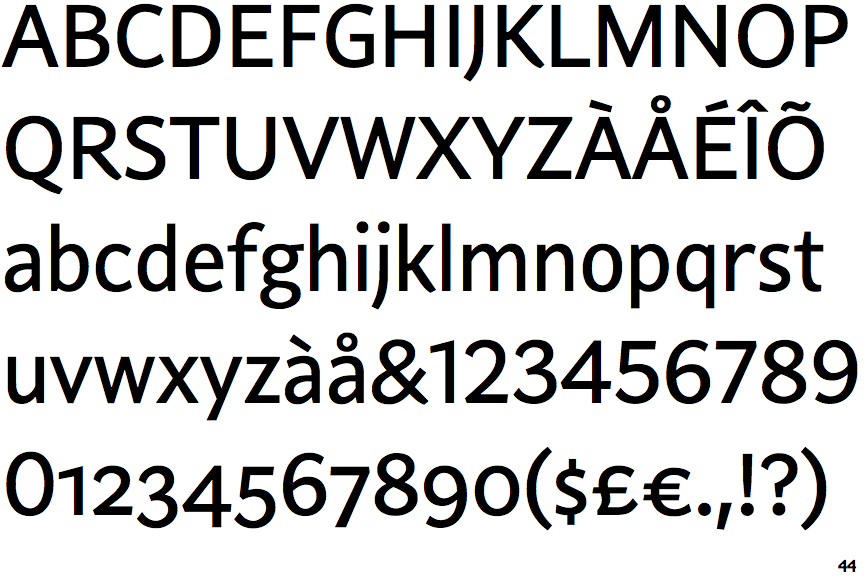
Nara Sans
An ideal Companion to the fonts Nara, Nara Cursive and Nara Sans Cursive.
Designers: Andrej Krátky, Slávka Pauliková, Nikola Djurek and Marko Hrastovec
Year: 2017
Publisher: Typotheque
Among the typefaces chosen in the review Our Favorite Typefaces of 2017 by the on-line journal Typographica.
An OpenType font that includes both lining and oldstyle figures.